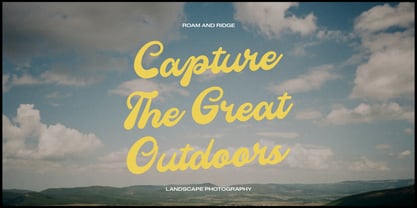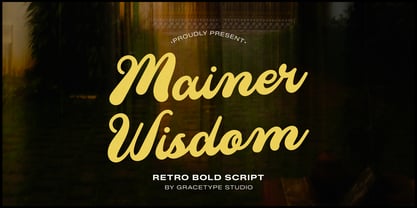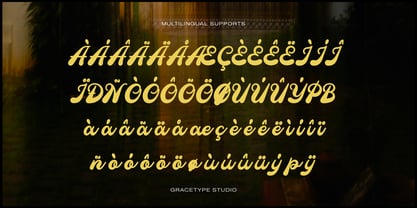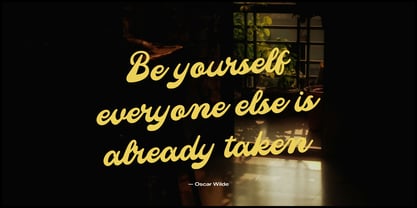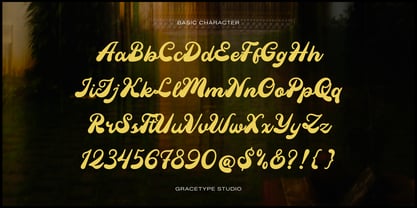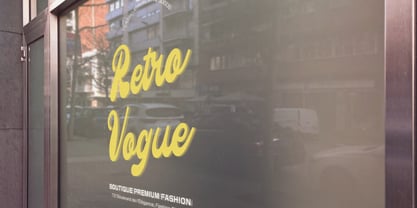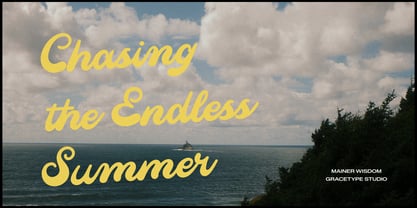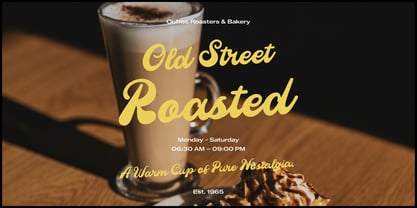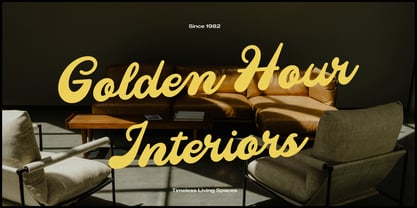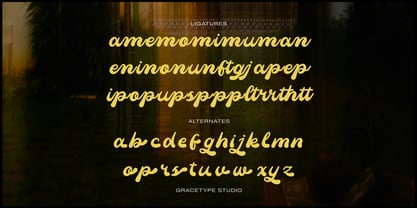
Mainer Wisdom
by Tini Fitriani
Mainer Wisdom | Retro Bold Script, from Gracetypestudio, suitable for any projects such as: logos, branding projects, homeware designs, product packaging, mugs, quotes, posters, shopping bags, t-shirts, book covers, name card, invitation cards, greeting cards, label, photography, watermark, special events, and all your other lovely projects that need a Script taste.